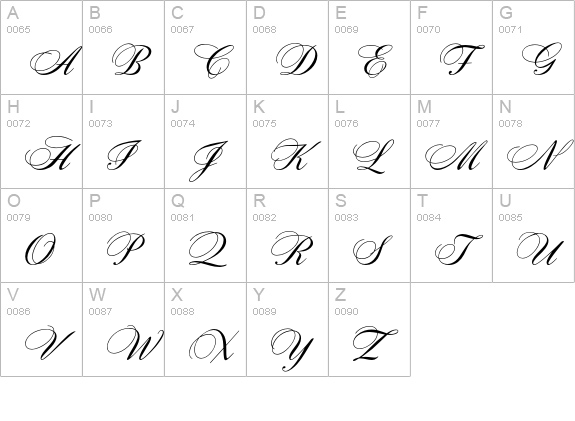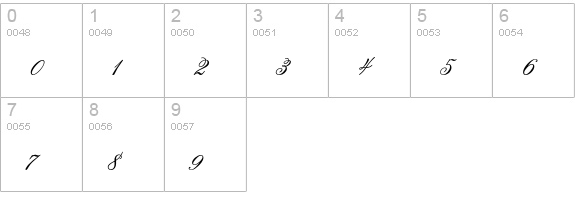
Citadel Script Std is a charming and elegant font that embodies sophistication and grace. With its flowing cursive style and intricate details, this typeface exudes a sense of timeless beauty. Perfect for adding a touch of class to invitations, branding, and other design projects, Citadel Script Std is a versatile choice that will elevate any visual composition. The best part? Citadel Script Std is completely free to download at FontsMarket.com. You can enhance your creative projects with this exquisite font without breaking the bank. Whether you're a designer looking for a new addition to your font collection or a DIY enthusiast seeking a touch of luxury for your projects, Citadel Script Std is the ideal choice. Download it today and let your creativity soar with this elegant and free font offering.